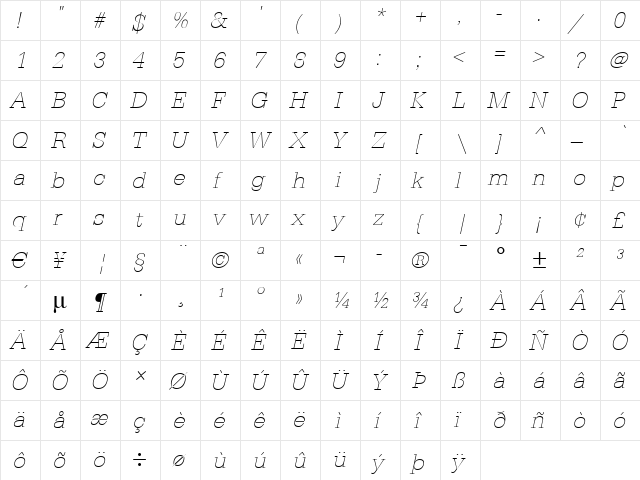
AstridBeckerXlight Italic Font Preview
Design Context for AstridBeckerXlight Typeface
AstridBeckerXlight takes a measured approach to typography — its balanced proportions and neutral character make it a reliable workhorse for both digital and print work. The dynamic lean of this cut emphasises speed and emphasis in any layout. The delicate stroke weight brings airiness and refinement to layouts.